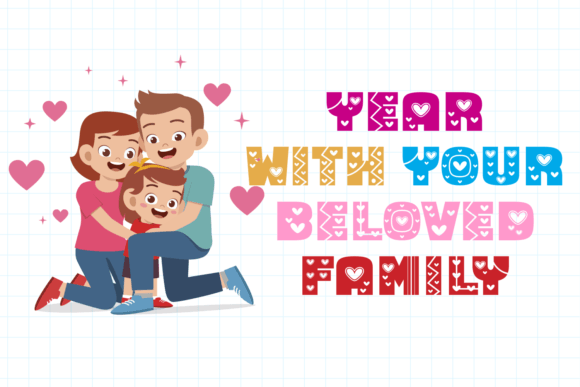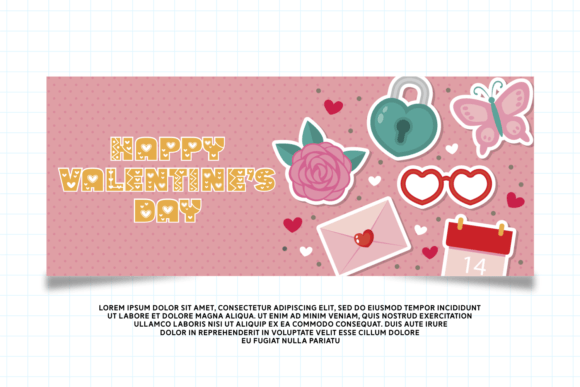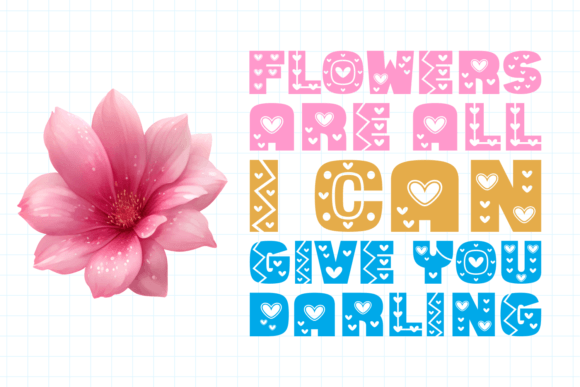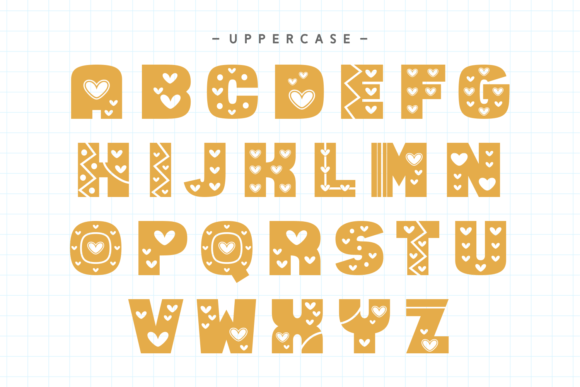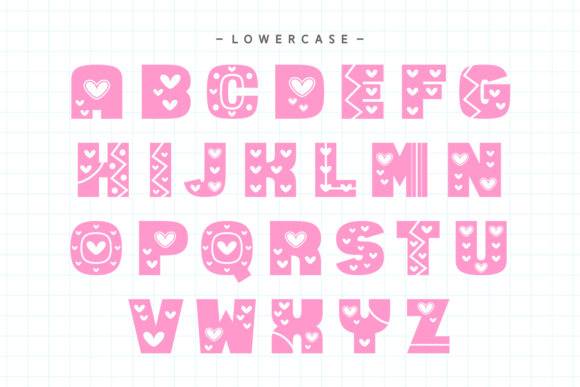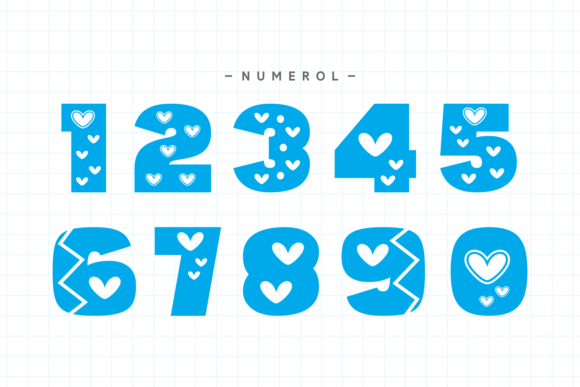
Introduction to Melyan Lover Font Font
Fonts play a crucial role in design, and the Melyan Lover Font font is a typeface that brings both character and versatility to any project. Whether you’re working on a branding project, a website, or a print design, the Melyan Lover Font font offers a unique style that can elevate your work.
Meet Melyan Lover, the sweet and charming decorative font that adds a touch of love to your text.
This font is not just cuteβitβs adorned with hearts nestled within each letter, bringing warmth and playfulness to your designs Perfect for creating love notes, invitations, or any project where you want to infuse a dose of affectionate style.
Key Features of Melyan Lover Font Font
The Melyan Lover Font font is more than just a typeface β it’s a design tool that helps you communicate your message with style and clarity. Its unique character set and versatile design make it suitable for a wide range of applications, from elegant invitations to bold headlines.
With its carefully crafted letterforms and balanced proportions, the Melyan Lover Font font ensures readability and visual appeal across all mediums.
What makes Melyan Lover Font font special?
The Melyan Lover Font font stands out with its unique design, exceptional readability, and versatility across various design applications.